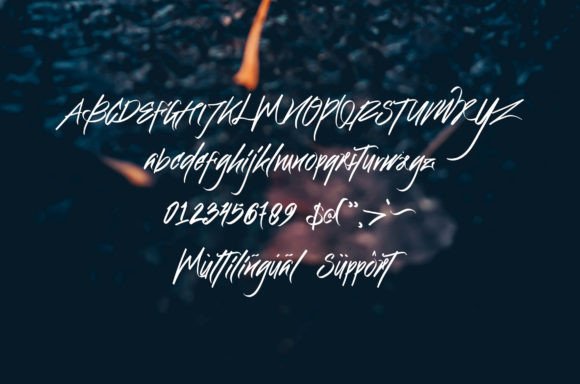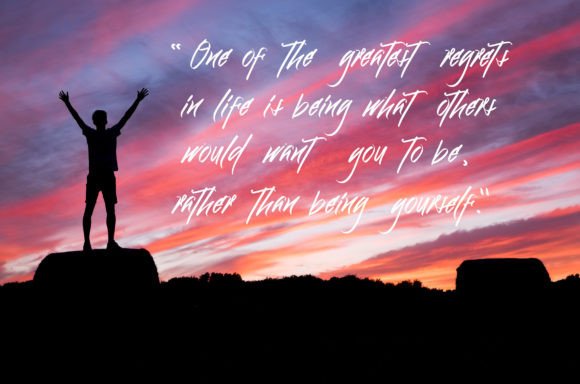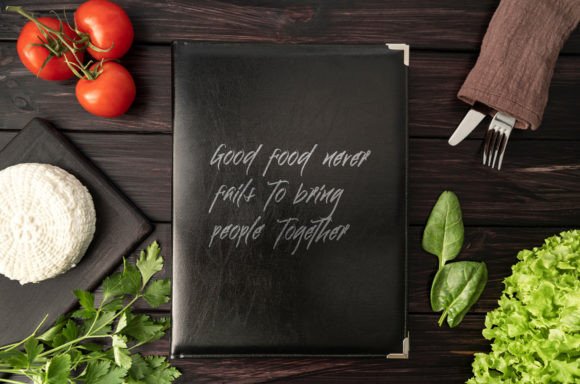
About The Romance Island Font
The Romance Island feels equally charming and elegant. It looks stunning on wedding invitations, thank you cards, quotes, greeting cards, logos, business cards, and every other design which needs a handwritten touch.